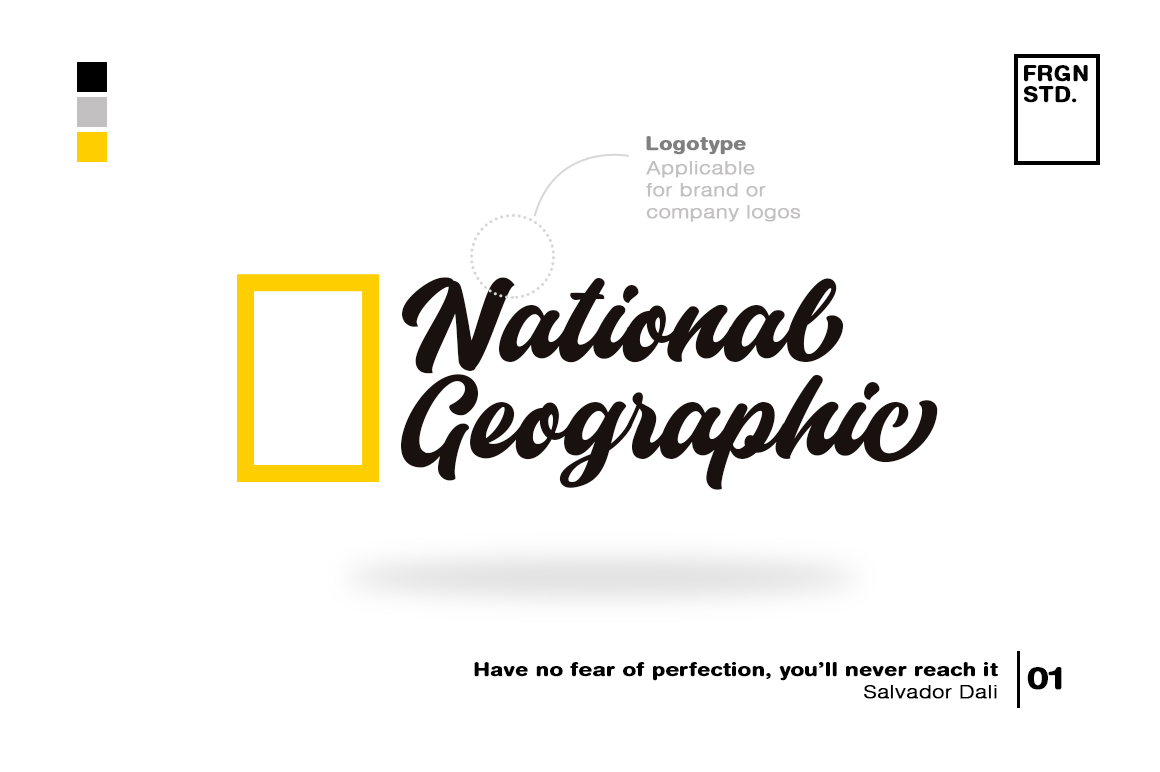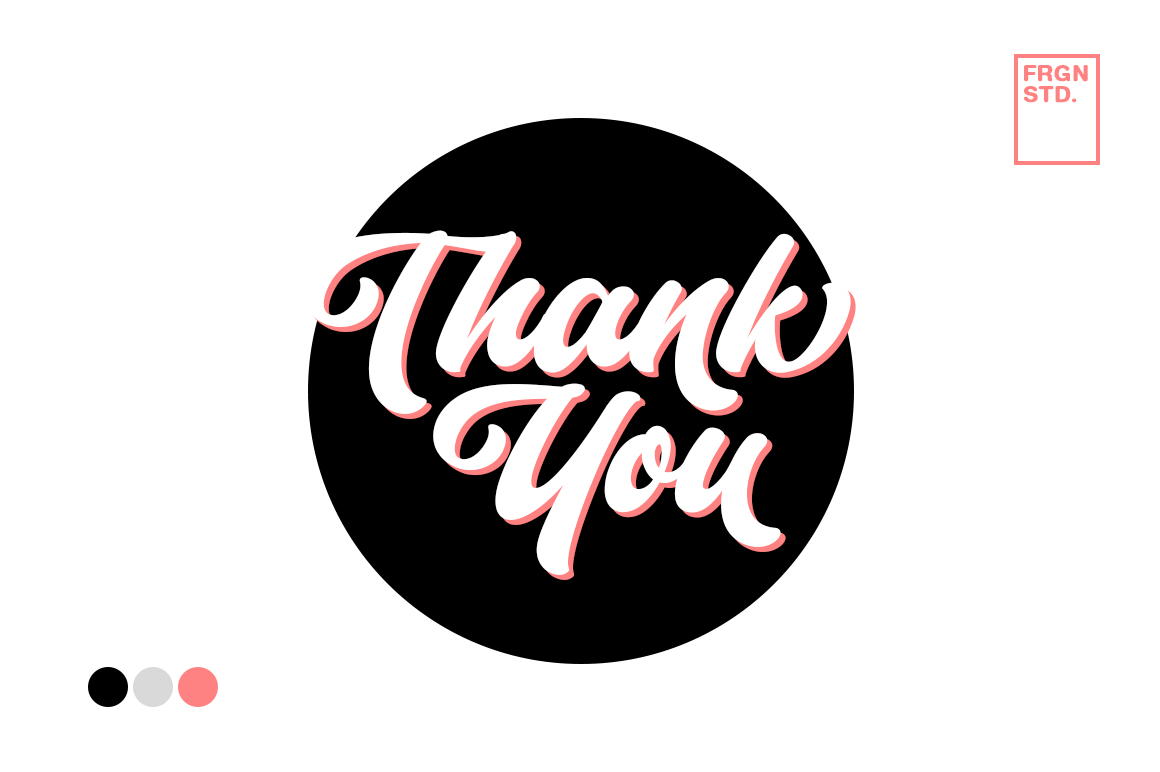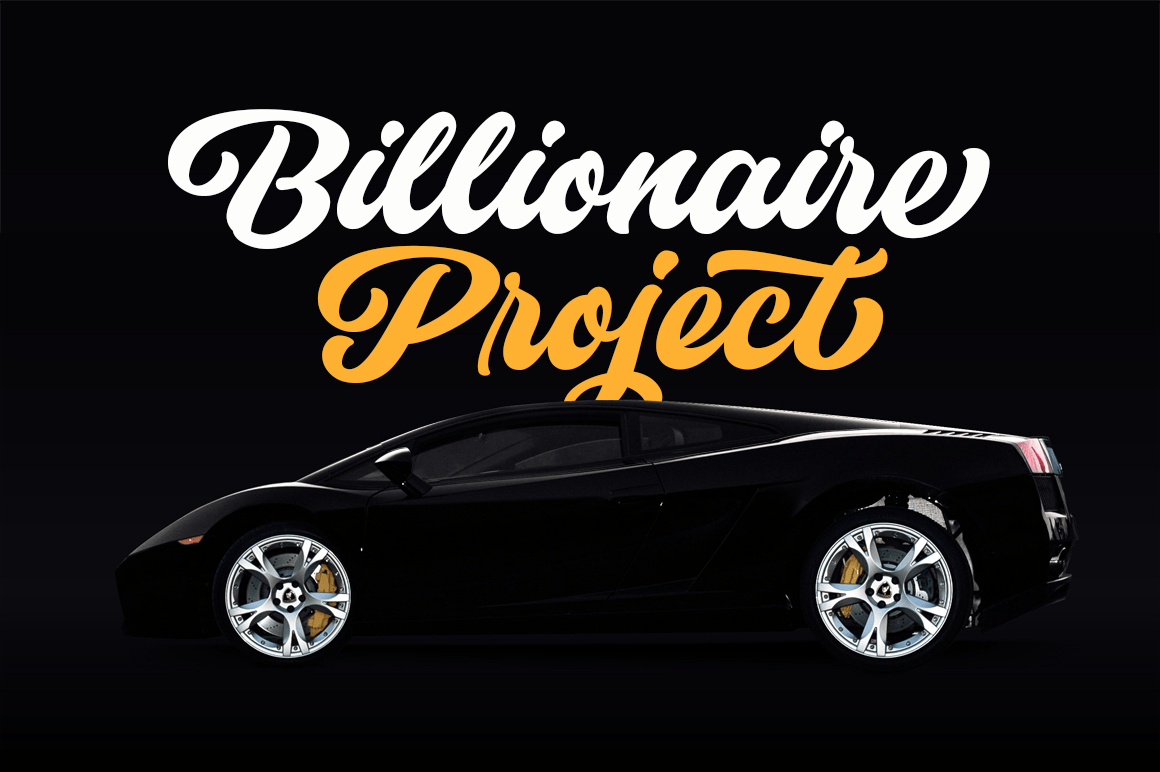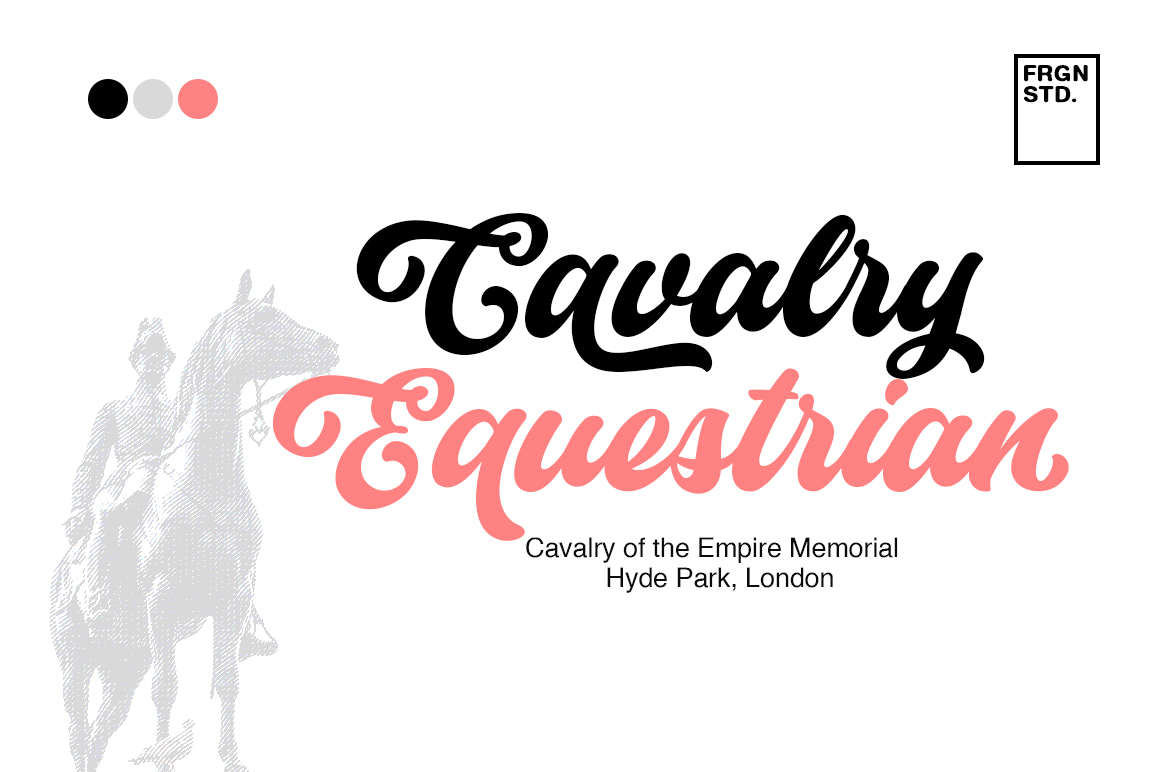
About Historia Script
Historia script is the stylish vintage look font. Come with ligatures, stylistic alternate, stylistic set and end swash to make your own design look perfect. Can be used for various purposes. such as headings, signature, logos, retro wedding invitation,…